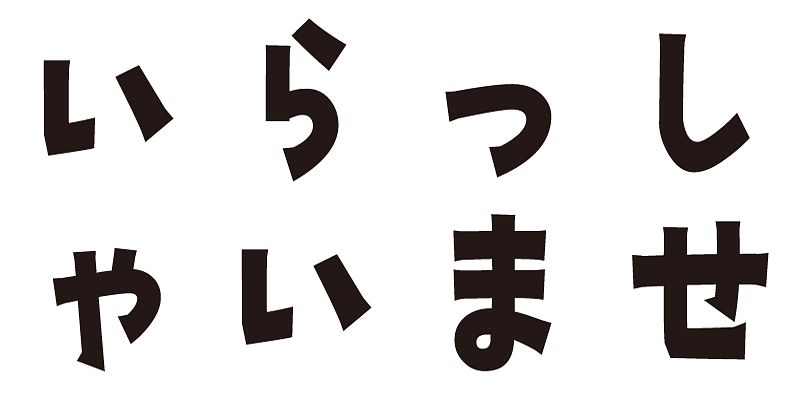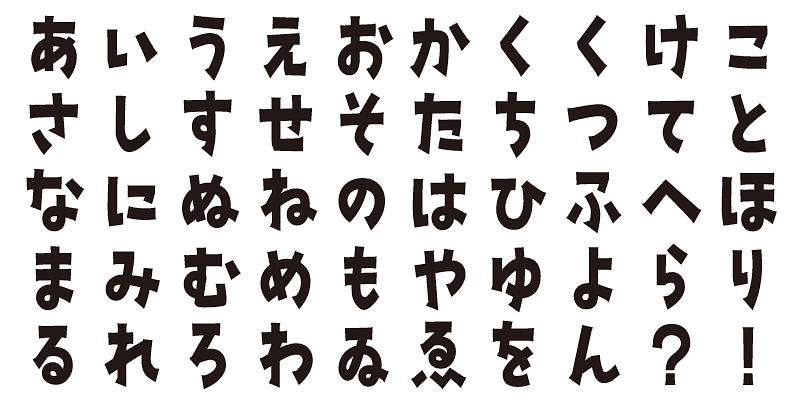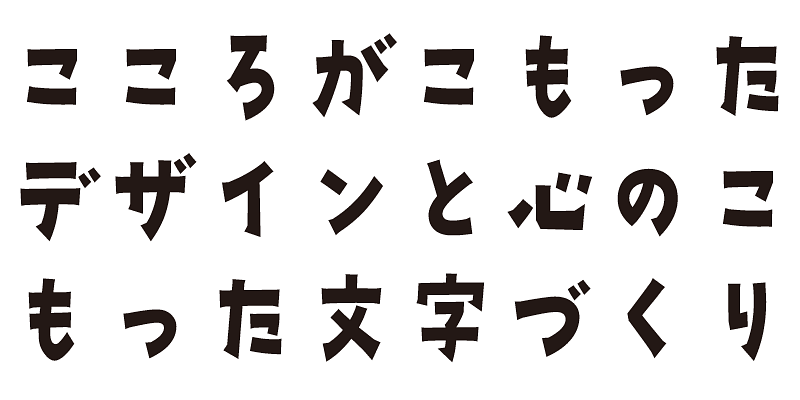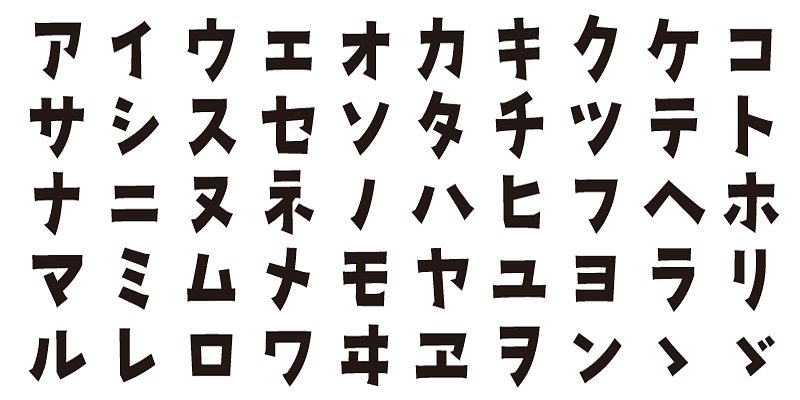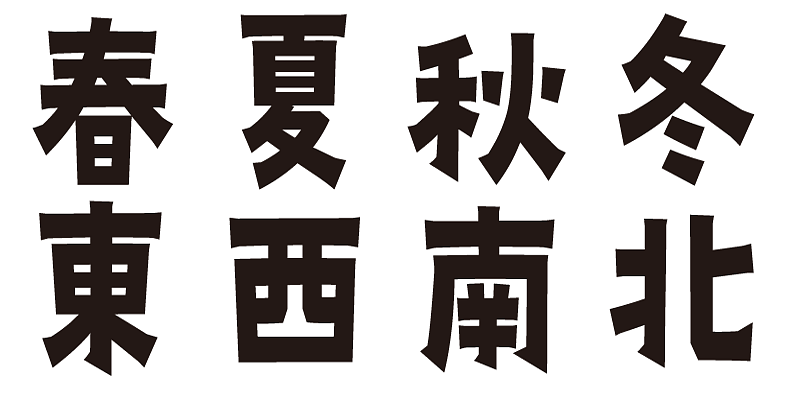
A casual typeface finished in a style mixing the traditional Clerical and Regular Script styles.
Each font in this typeface family includes 1,000 kanji characters, as well as hiragana, katakana, alphanumeric characters, and punctuation marks.
We design typefaces with the hope that they will add underlying meaning to words expressed. We wish the user to feel good and experience comfort and joy when using these typefaces.